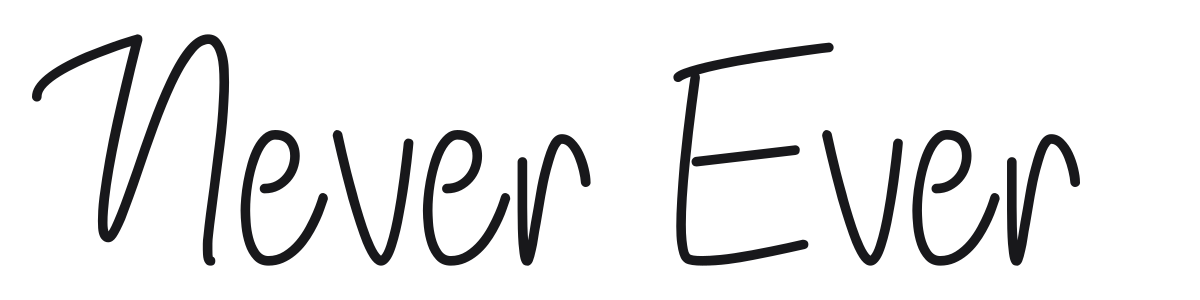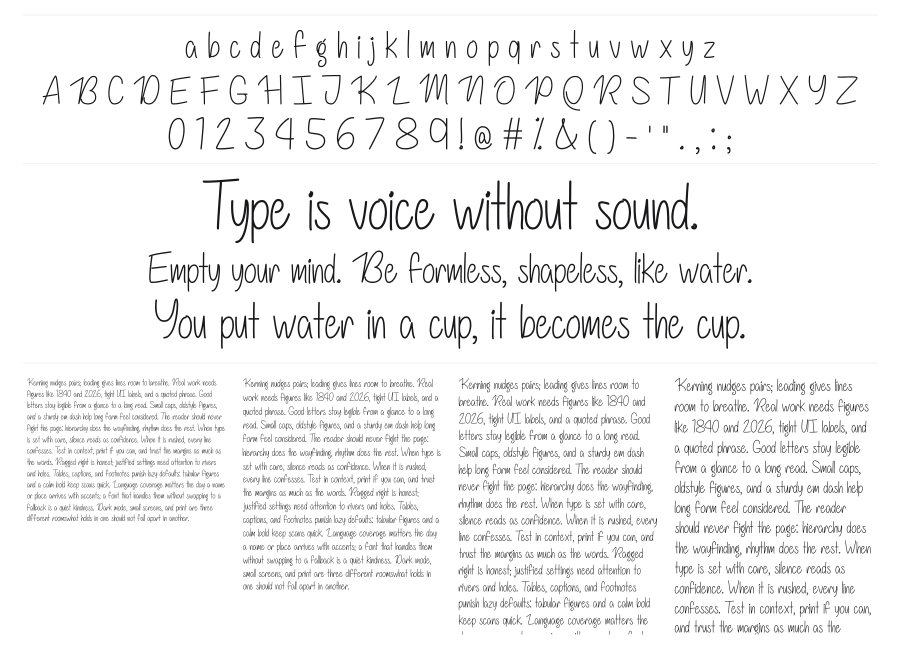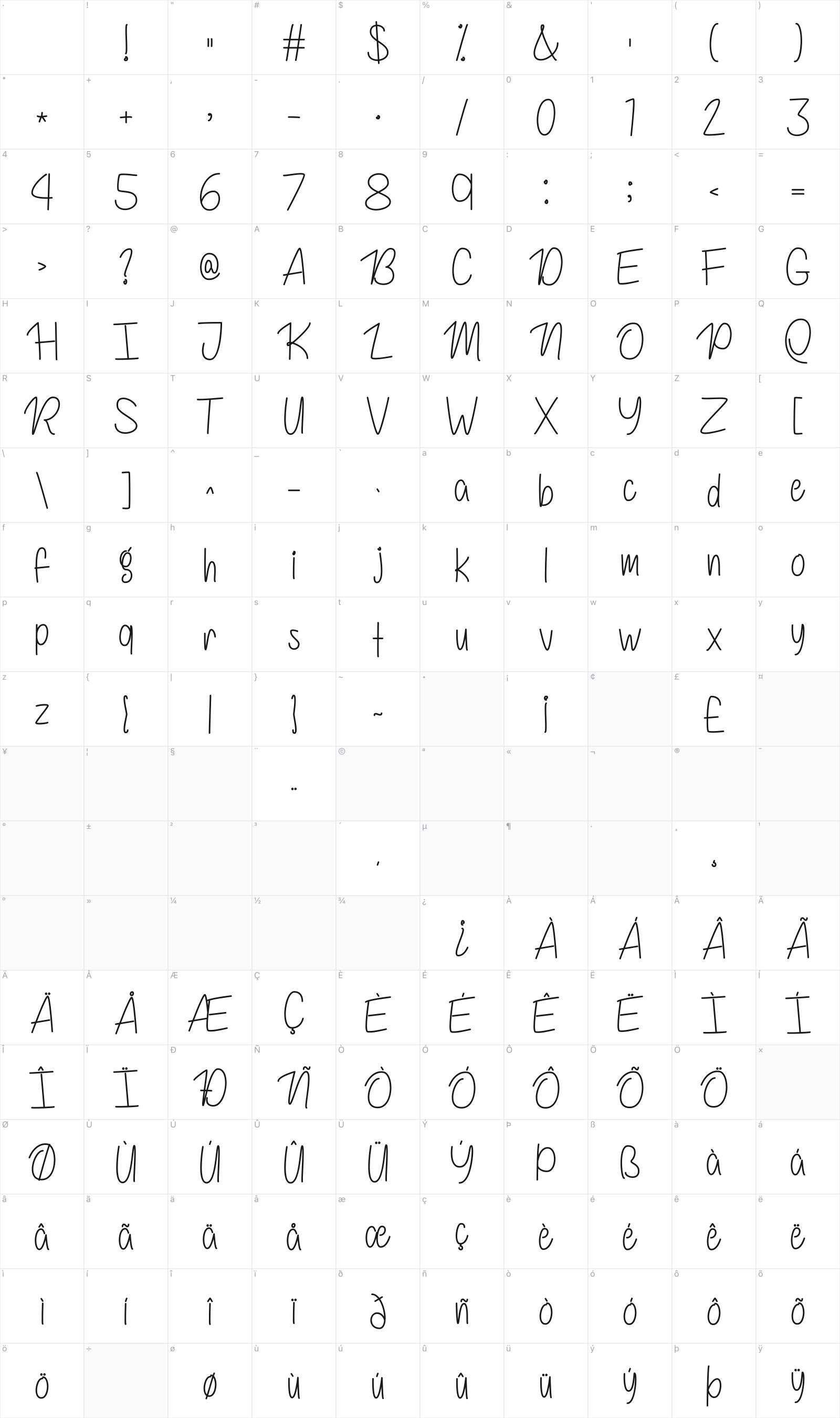
Never Ever
Never Ever is a casual handwritten script from Misti's Fonts with a light, flowing stroke and gently bouncing baseline. The letters feel like a natural pen on paper, informal enough for a personal note but polished enough for a product label or brand identity. It carries warmth without tipping into childishness.